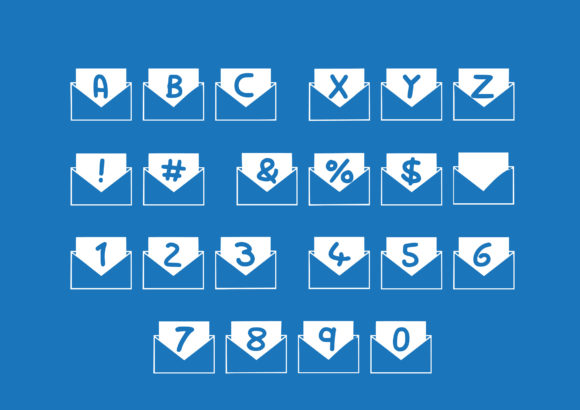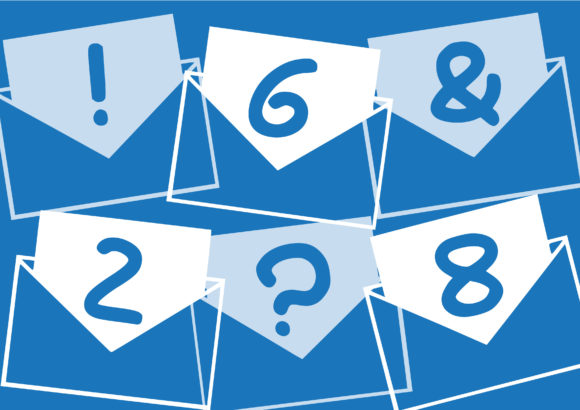
Introduction to Play Letter Font
Have you ever found yourself in the middle of a creative project, staring at a blank page, and suddenly, a burst of inspiration hits you? Maybe it’s the need for a fun and playful touch that makes your design stand out. That’s where the Play Letter Font comes in – a cool and festive decorative font that’s sure to bring a smile to your face.
As a designer, you know how valuable it is to have high-quality design resources at your fingertips. The Play Letter Font is a free download that’s perfect for adding a creative twist to your next project. Whether you’re working on a digital design, creating greeting cards, or crafting a presentation, this font has the potential to become your go-to design resource.
Key Features of Play Letter Font
- High-quality font designed for creative projects, offering a unique and playful touch to any design.
- Comes in a transparent background, allowing for easy customization and integration with various design elements.
- Includes a range of lettering styles, each with its own unique characteristics, making it suitable for various design applications.
- Designed with high resolution (up to 300 DPI), ensuring crisp and clear text display, even at larger sizes.
- Perfect for use in digital design projects, such as logos, graphics, and typography-based designs, where a playful and creative touch is desired.
Honest Review: Play Letter Font
As a designer, I’m always on the lookout for high-quality design resources that can elevate my creative projects. The Play Letter Font is one such find that has caught my attention recently.
What works well with this font is its playful, yet elegant design. The rounded edges and smooth lines make it perfect for use in logos, headings, and other graphic elements. The font is also highly customizable, allowing you to adjust the size, color, and even add effects to make it stand out. ✨
- Perfect for logos, headings, and other graphic elements
However, there are some limitations to consider. The font may not be suitable for use on a transparent background, as the design may get lost in the background. Additionally, the font may not be compatible with all operating systems or devices. ⚠️
Overall, I’m impressed with the Play Letter Font and would definitely recommend it to fellow designers. Its high quality and versatility make it a great addition to any design project.
Play Letter Font is a versatile design resource that can be used in various creative projects, such as logo design, branding, and infographics. It’s also great for creating eye-catching titles and headings in presentations and documents.
To get the most out of Play Letter Font, experiment with different font sizes, colors, and styles to create a unique design. Use the font in combination with other design elements, such as images and graphics, to create a high-quality design. Additionally, consider using a transparent background to make your design stand out.